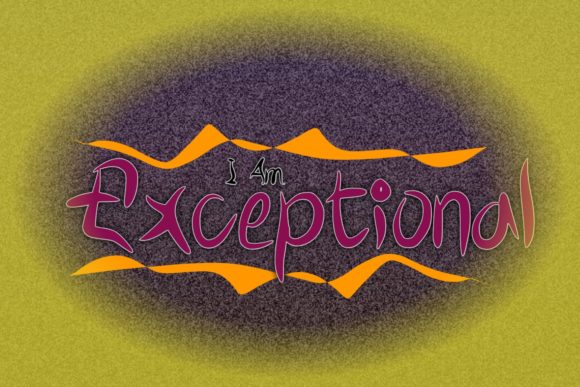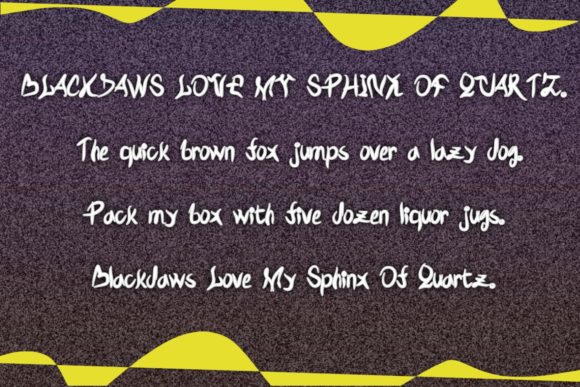
About I Am Exceptional Font
I am Exceptional is a charming and dainty color font that brings a quirky and playful touch to your designs. With its sweet and delicate swashes, this font adds a unique and original look to a variety of creative projects. Whether you’re designing letterheads, titles, stationery, or any other crafty idea, I am Exceptional is sure to capture attention and stand out.
As a color font in the Opentype-SVG format, I am Exceptional allows you to incorporate vibrant colors and intricate details directly into your typography. The combination of the font’s quirky style and the added color and swashes create a delightful and eye-catching visual effect.
Let your imagination run wild with I am Exceptional, and enjoy the playful and dainty touch it brings to your creative projects. Experiment with colors, explore the various swashes, and bring your designs to life with this charming color font!